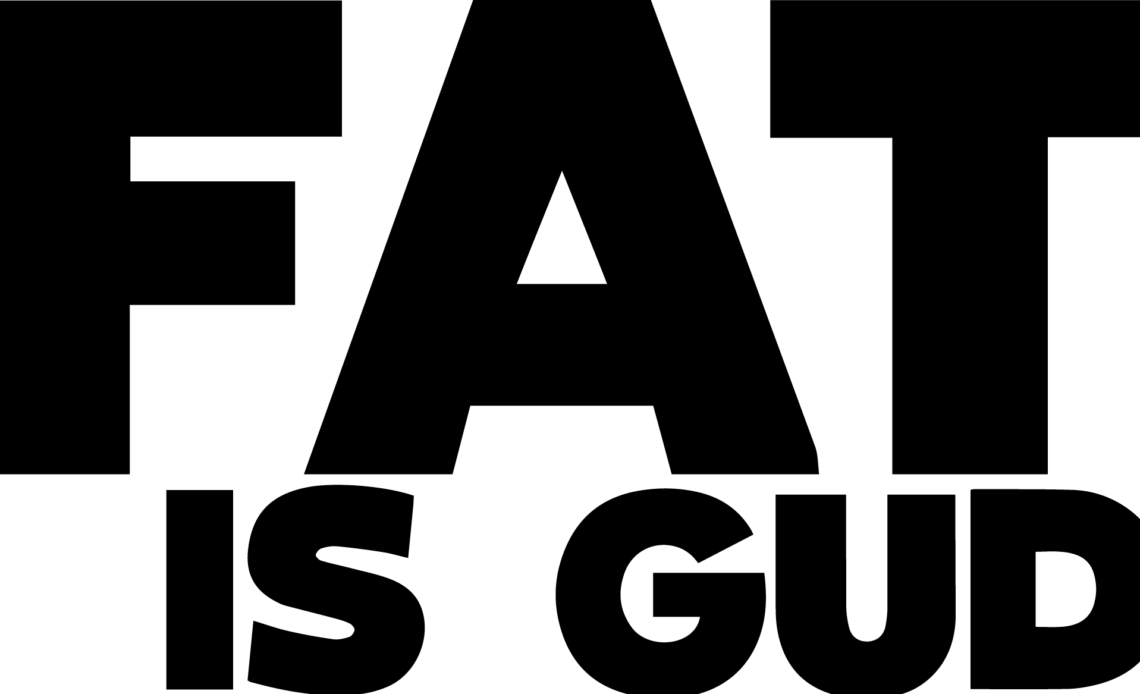
Fat is Gud Font
Introducing Fat is Gud, the font that oozes charm and playfulness. This spirited, thick sans serif was birthed by GUD, the creative wizards behind some of the most captivating typefaces. Dive into a world of visual delight with Fat is Gud - the perfect font to infuse your designs with quirky elegance.
Picture this: A logo that leaps off the page with its bold, youthful energy. A website that captivates with headlines that exude personality. Social media posts that pop with vibrant messages and stunning visuals. Fat is Gud is the versatile chameleon of the font world, seamlessly adapting to your creative chameleon of the font world, seamlessly adapting to your creative vision.
Indulge your playful side with Fat is Gud, the font that ignites imagination and sets your designs apart. Say goodbye to dull and predictable fonts, and embrace the world of audacious innovation. Make a statement with Fat is Gud, a font that captures the essence of creativity and celebrates the extraordinary.
Welcome to the world of Fat is Gud, where fonts come alive with personality and your designs take center stage. Unleash the magic of creativity and watch your projects blossom with a font that speaks volumes about your unique style. Step into the realm of visual brilliance. Transform your design dreams into reality with Fat is Gud, the font that dares to be different.